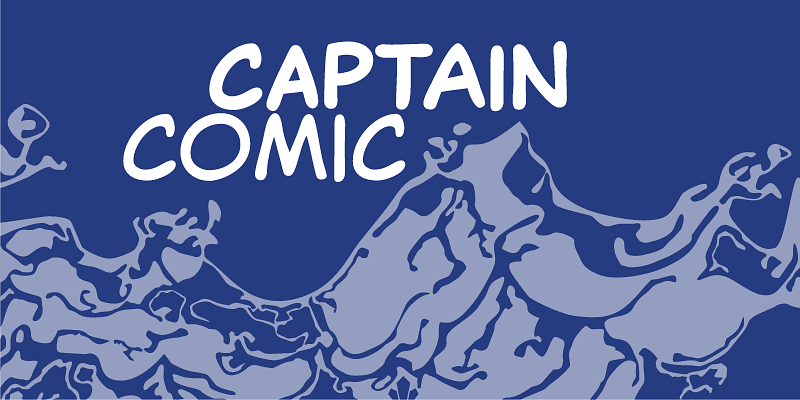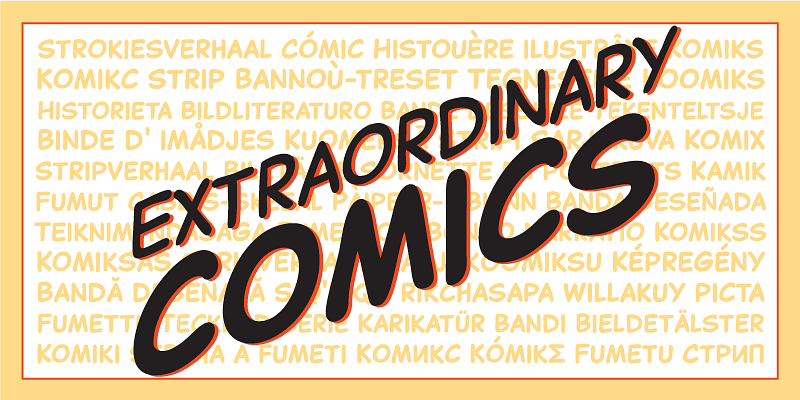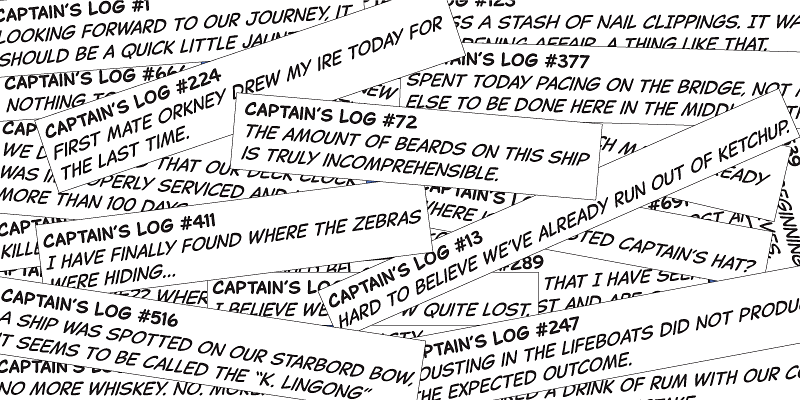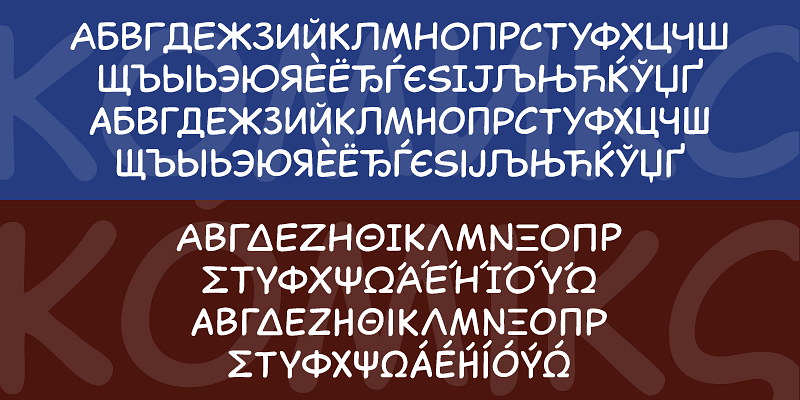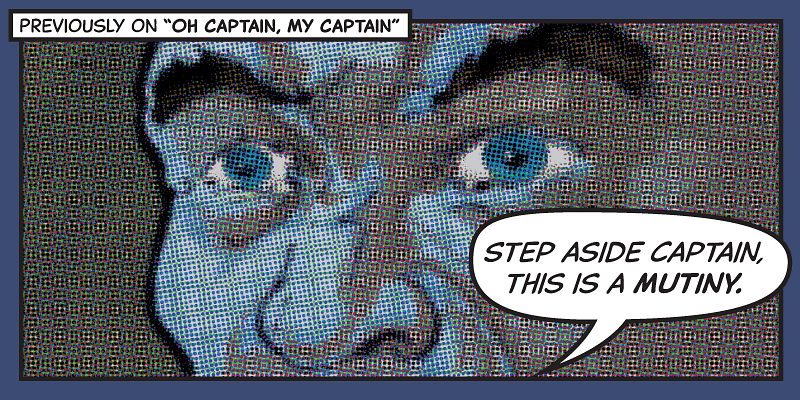
Captain Comic is very loosely based on lettering from 1967 to the early 1970s found in the very first Star Trek comic series ever published. Most letter shapes were changed, rounded and tweaked for a more contemporary comic text look.